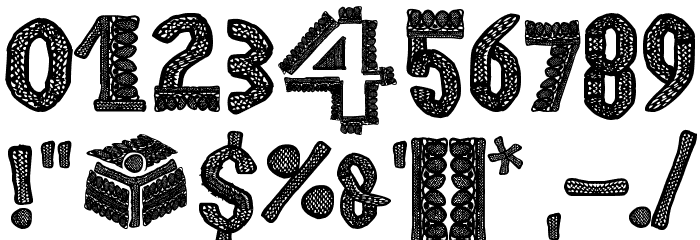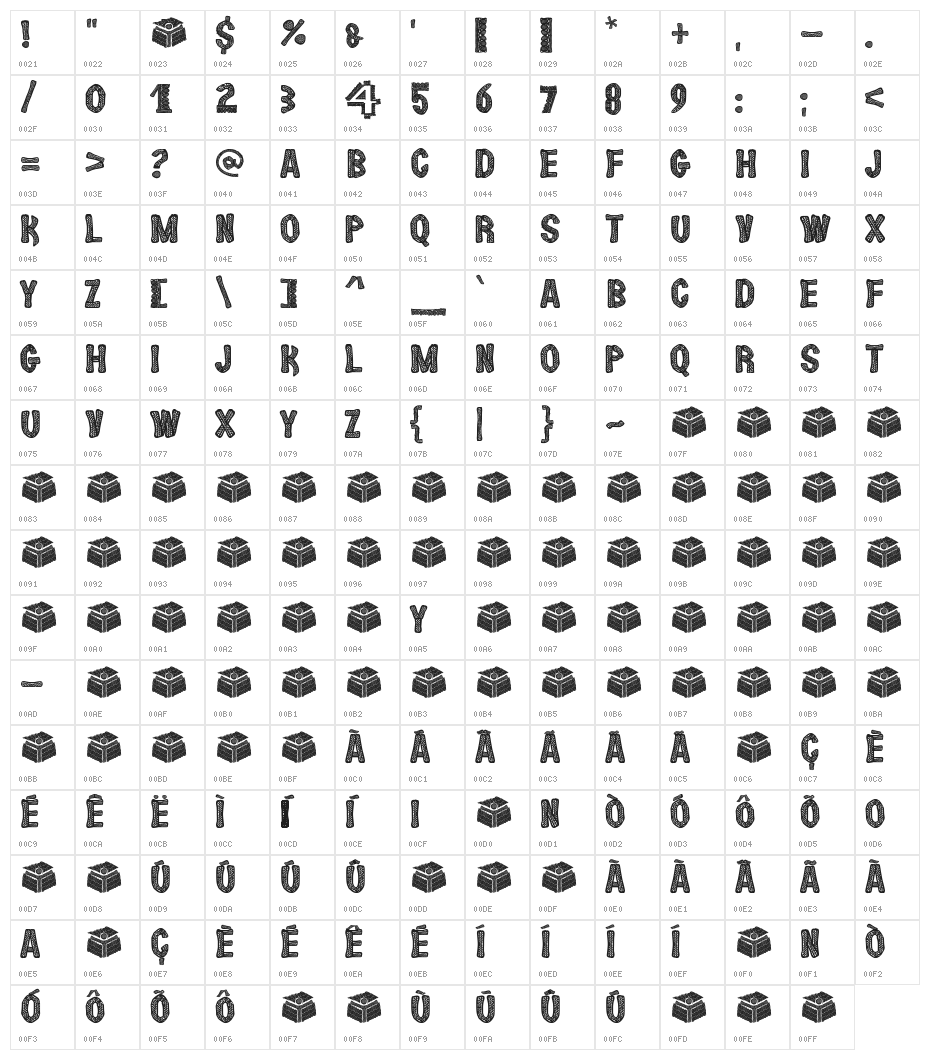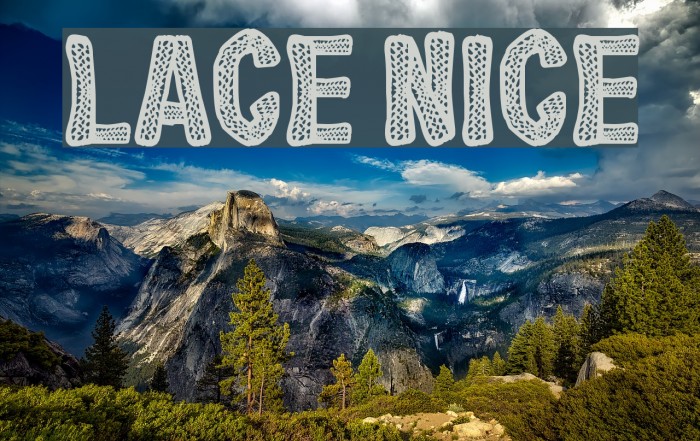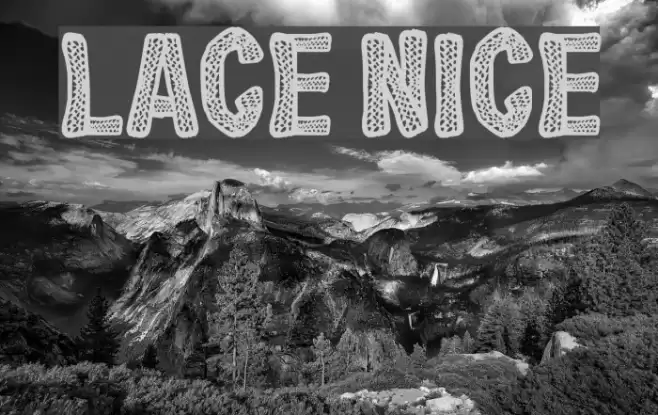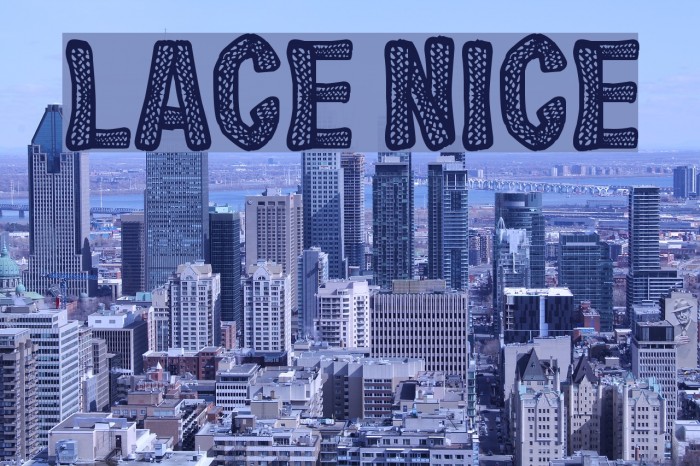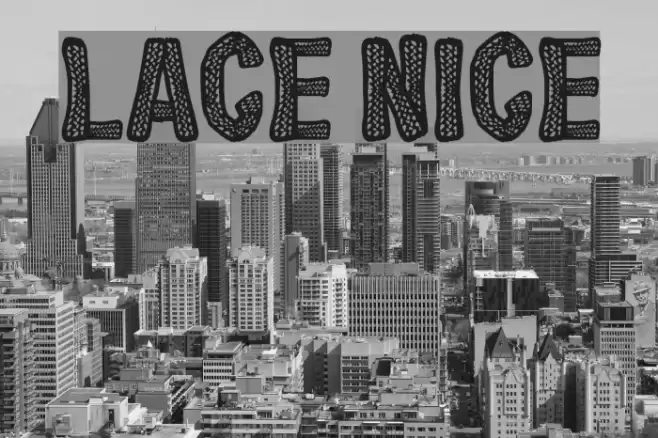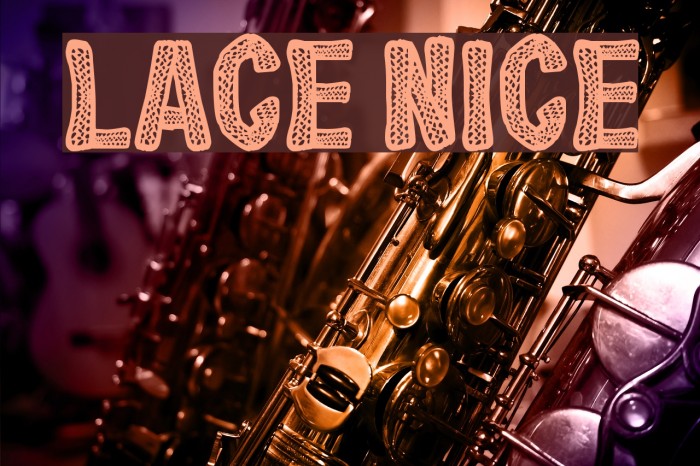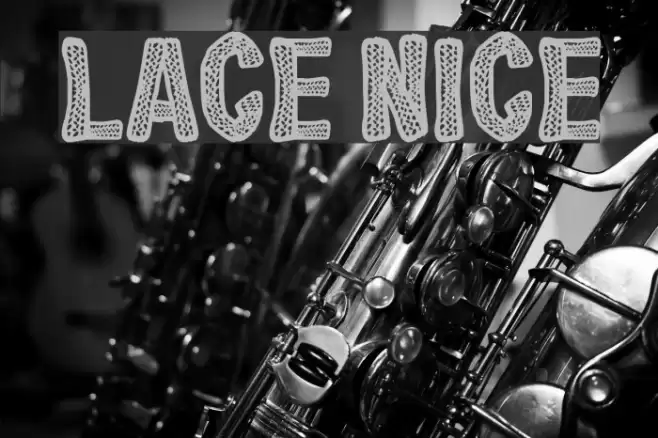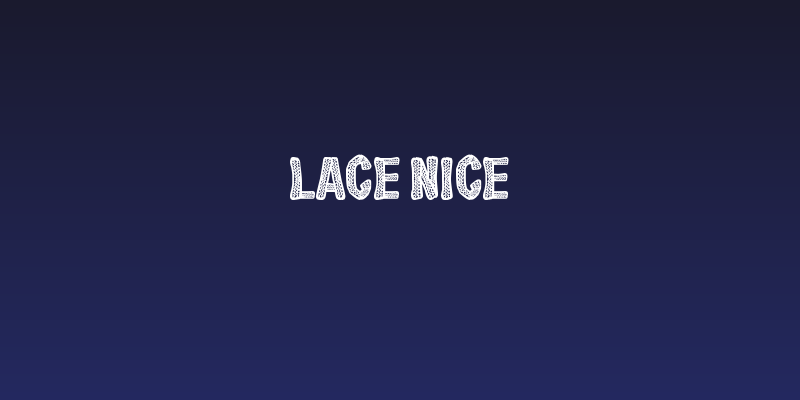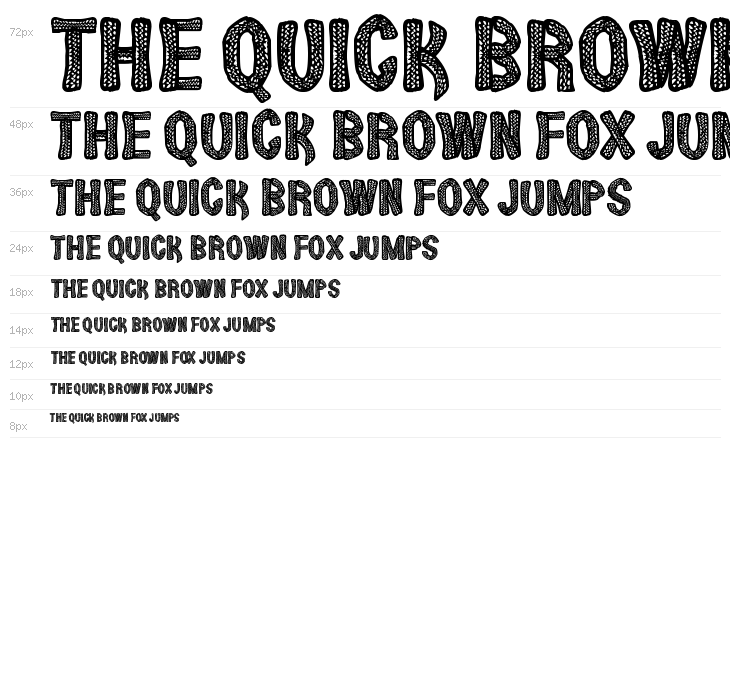
Lace Nice Font
Lace Nice Description
This font features a unique lace-like texture that gives each character a decorative and intricate appearance. The letters are bold and have a playful, handcrafted feel, with a consistent pattern of dots and lines filling the interior of each character. The uppercase and lowercase letters maintain a uniform style, while the numbers and special characters complement the overall design. This font's distinct style makes it stand out, offering a whimsical and artistic touch to any project.
Proposed ProjectsIdeal for creative projects such as invitations, greeting cards, posters, and branding that require a unique and artistic flair.